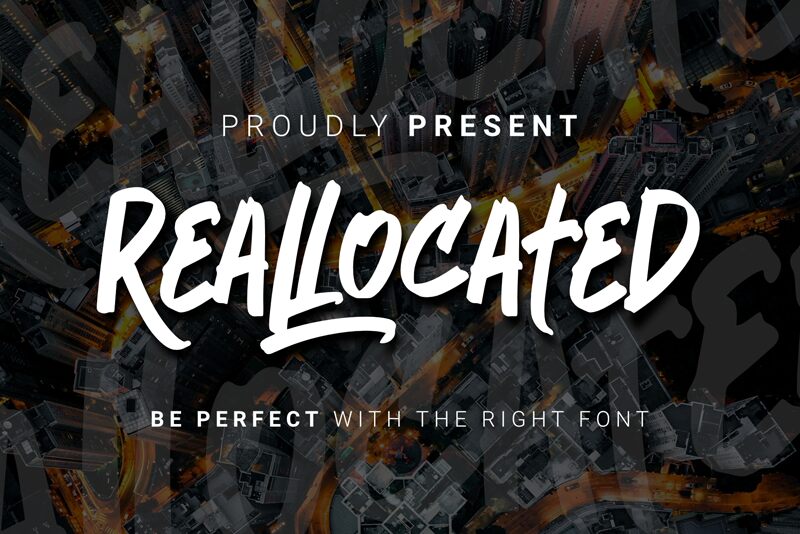
Reallocated
Reallocated, designed by DumadiStyle, is a unique brush font perfect for adding a cool and random touch to your designs.
With its semi-light weight, it is ideal for creating eye-catching posters and attention-grabbing headlines. However, due to its uneven letter heights, it is best suited for headers and not recommended for body text. Additionally, the non-uniform spacing between words requires careful proofreading before publication or social media sharing.
Embrace the quirks of Reallocated and let its distinct style bring a touch of uniqueness to your design projects.